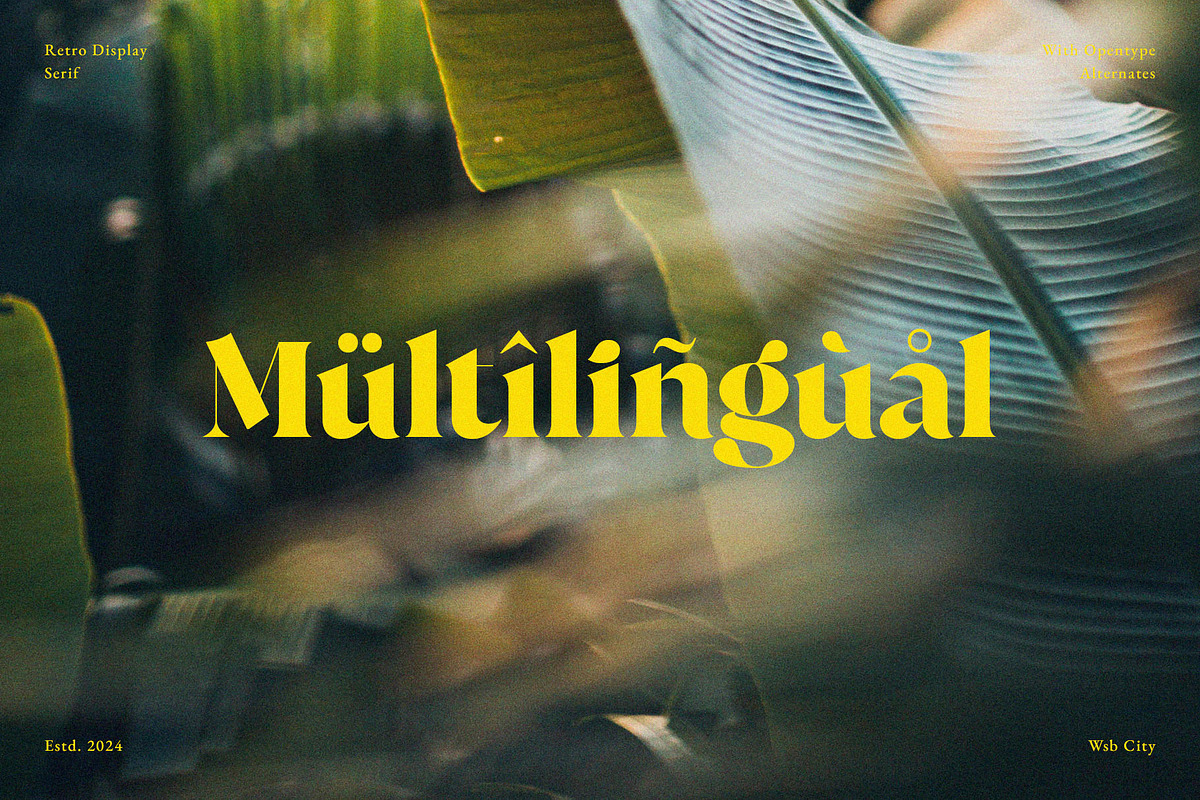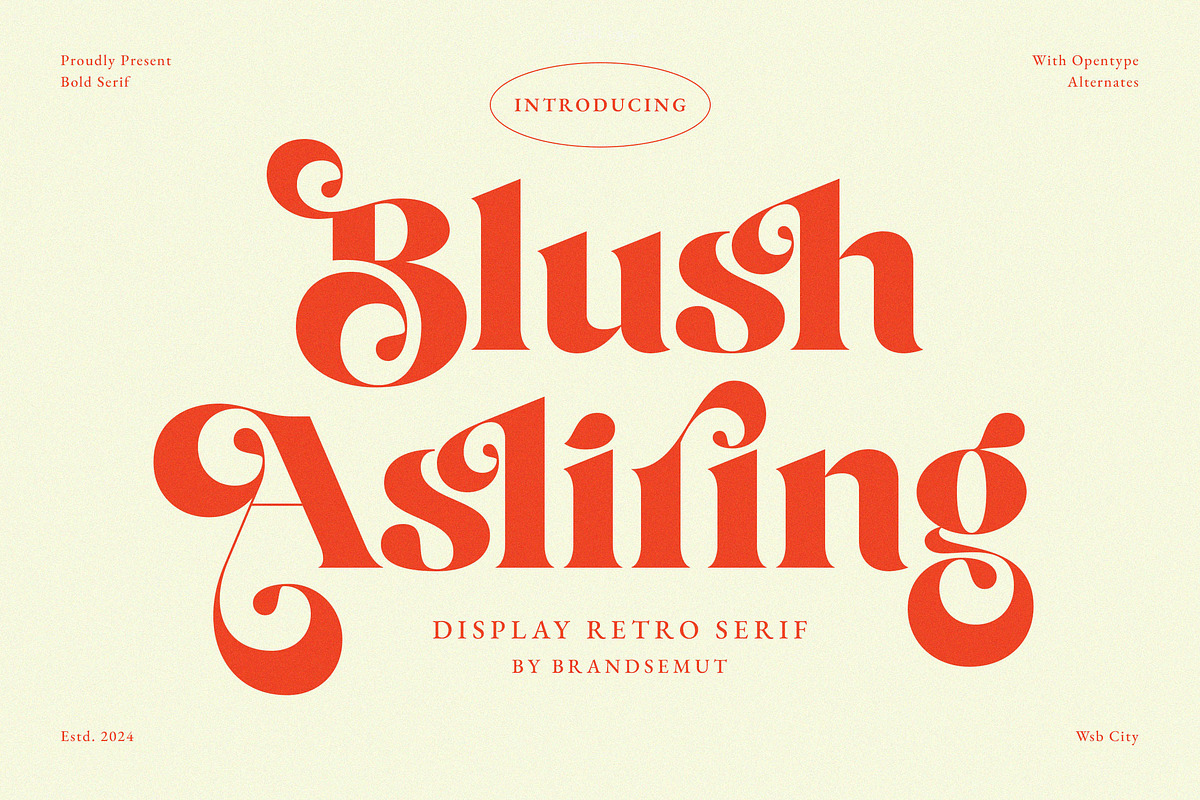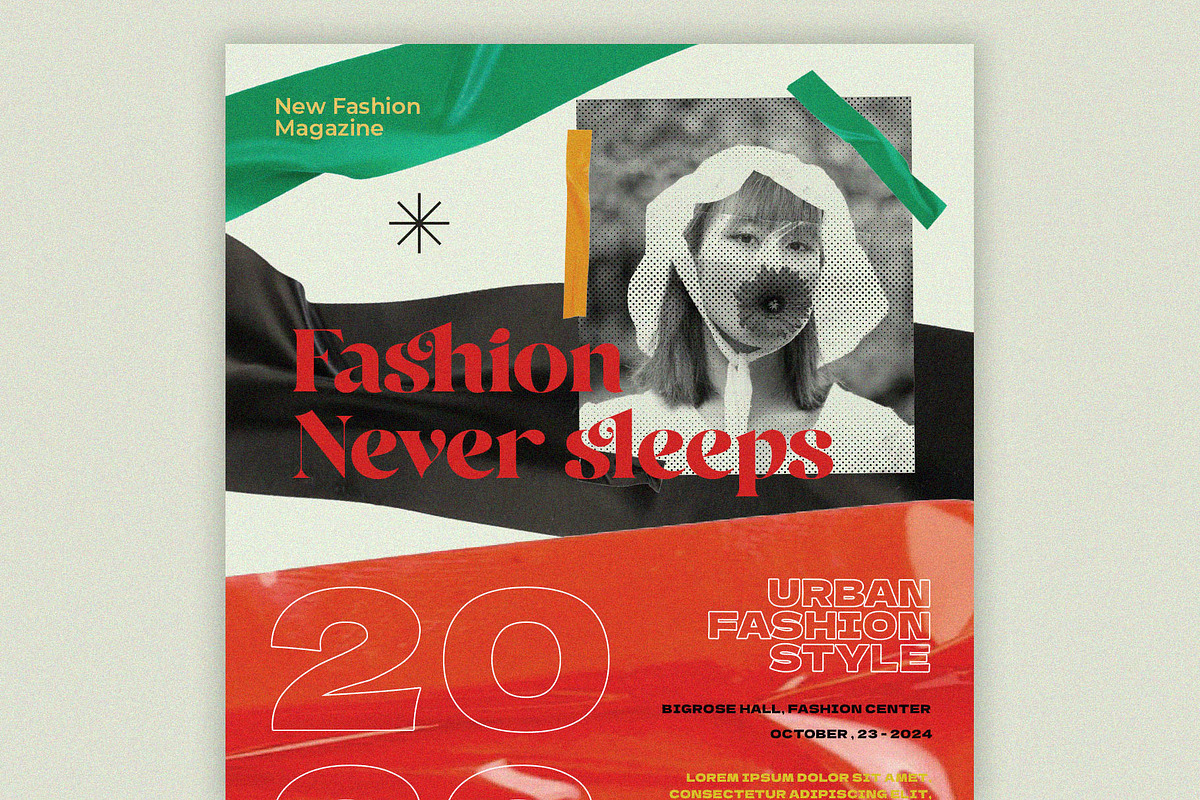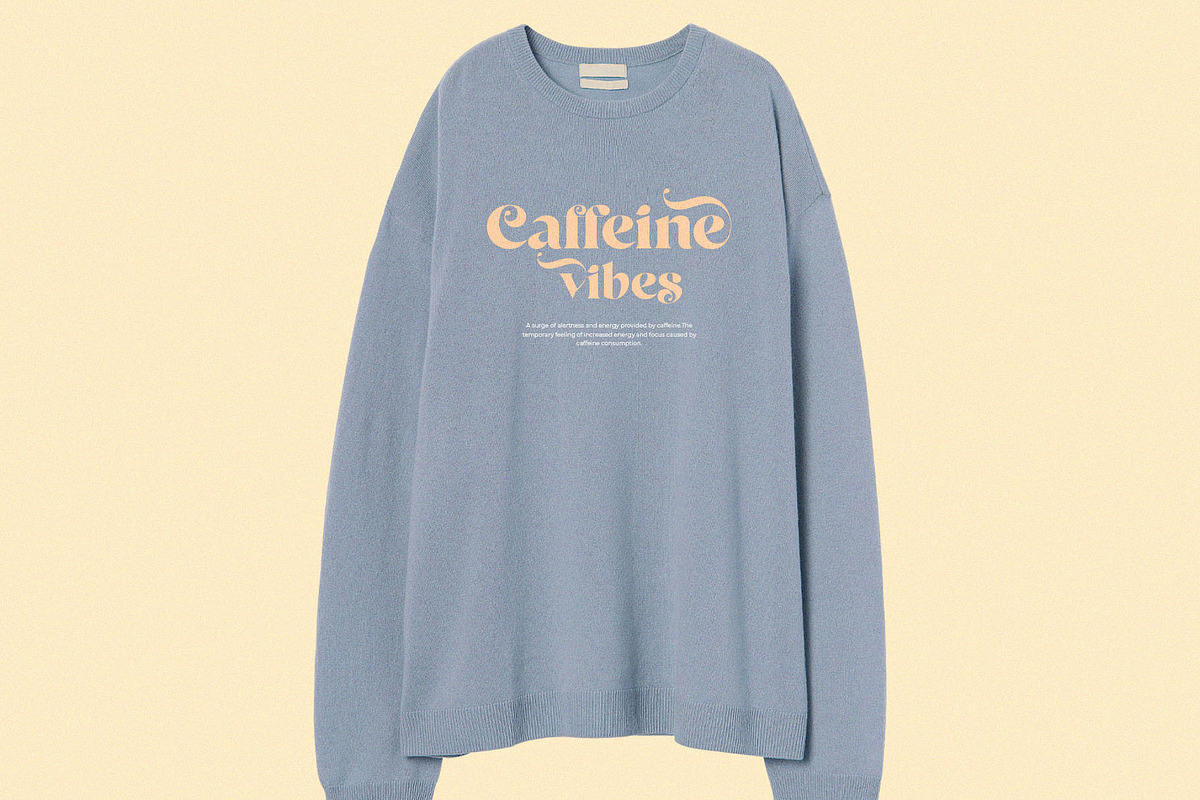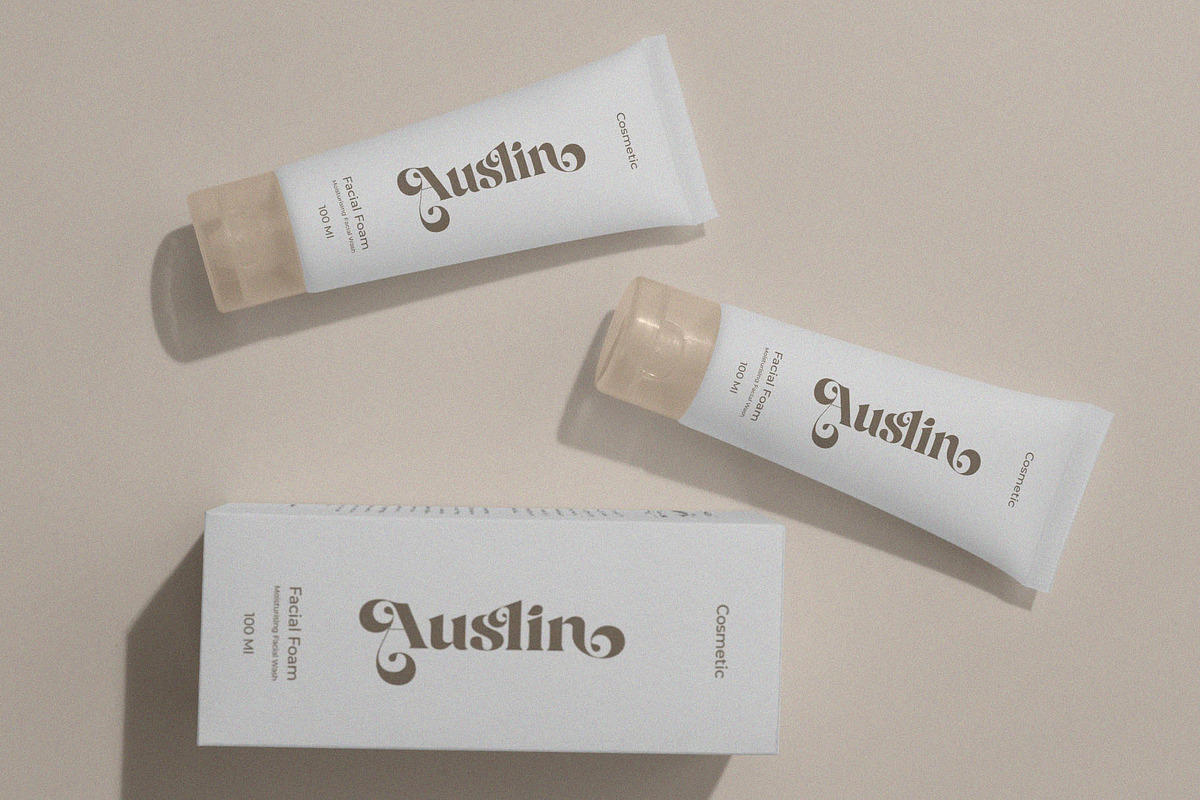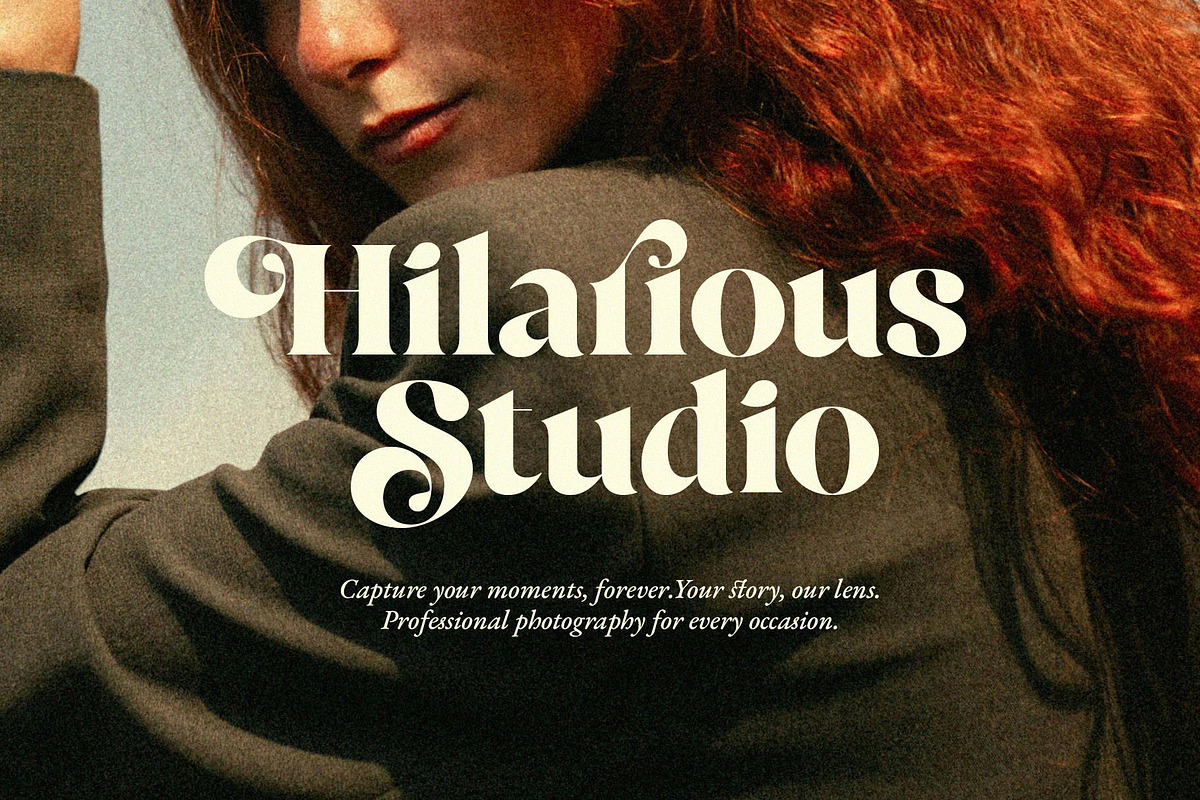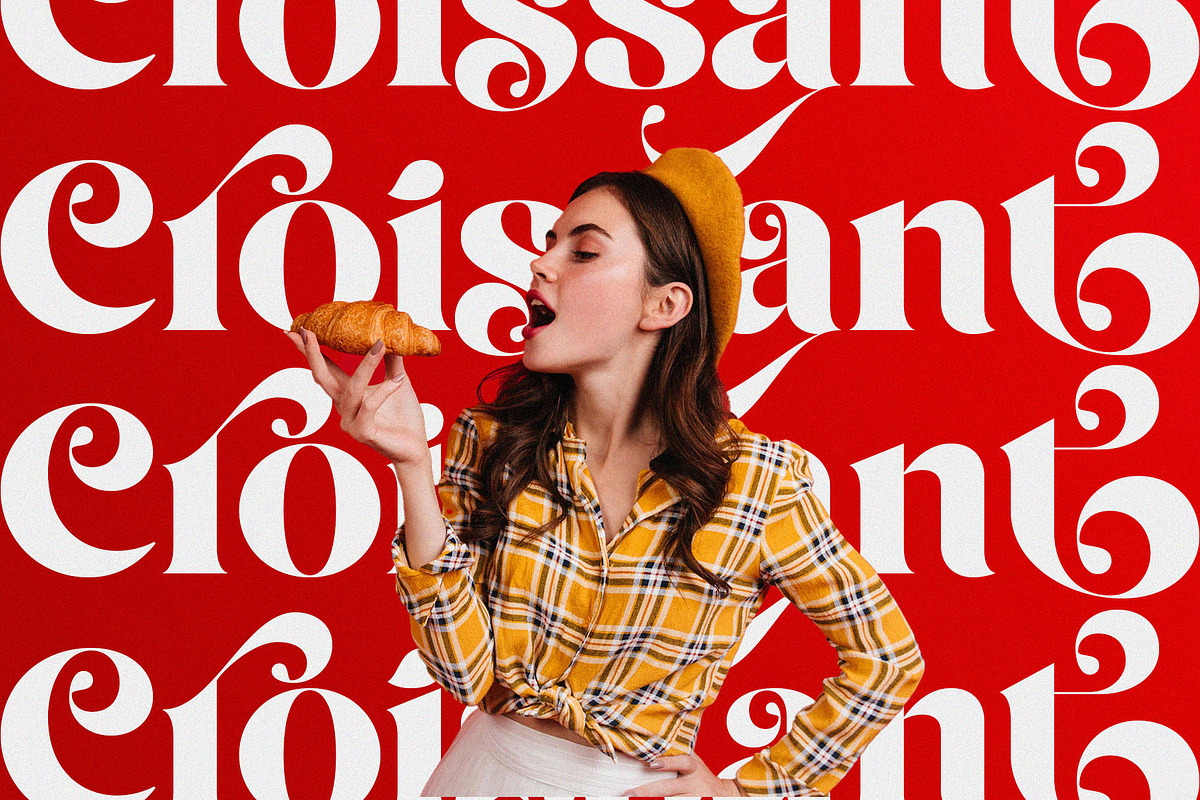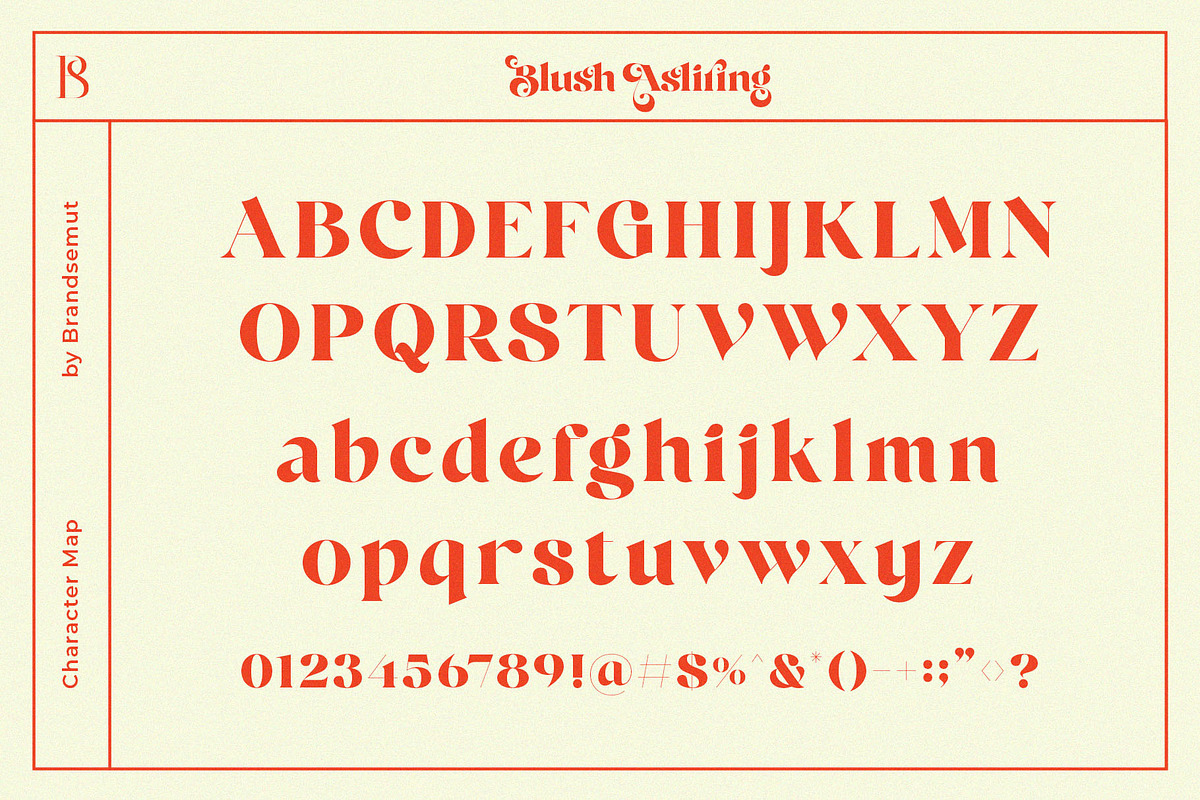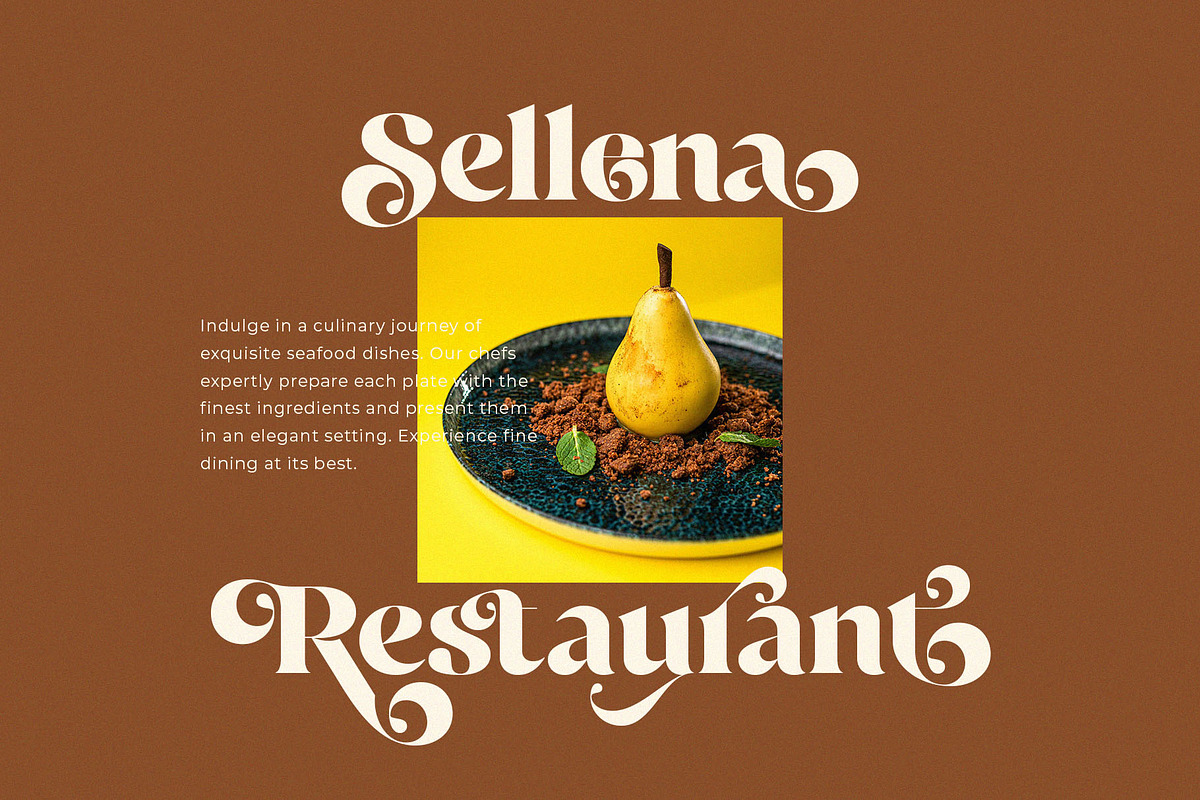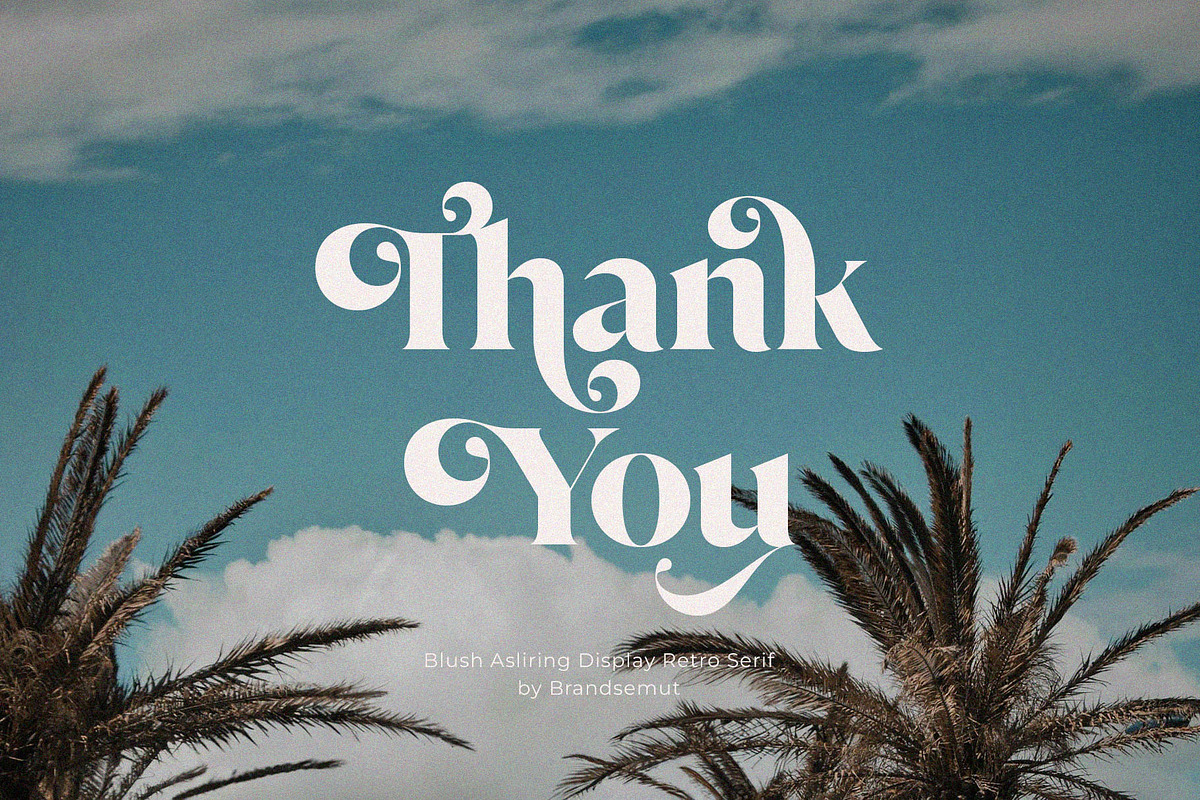
Blush Asliring - Display Retro Serif
Introducing Blush Asliring Display Retro Serif. Blush Asliring is a retro, elegant and classy display serif, best used as a display for headings, logos, branding, magazines, product packaging and invitations. Blush Asliring equipped with Ligature and many Alternates and come with clean lines and smooth curves give any project an extra touch of class.